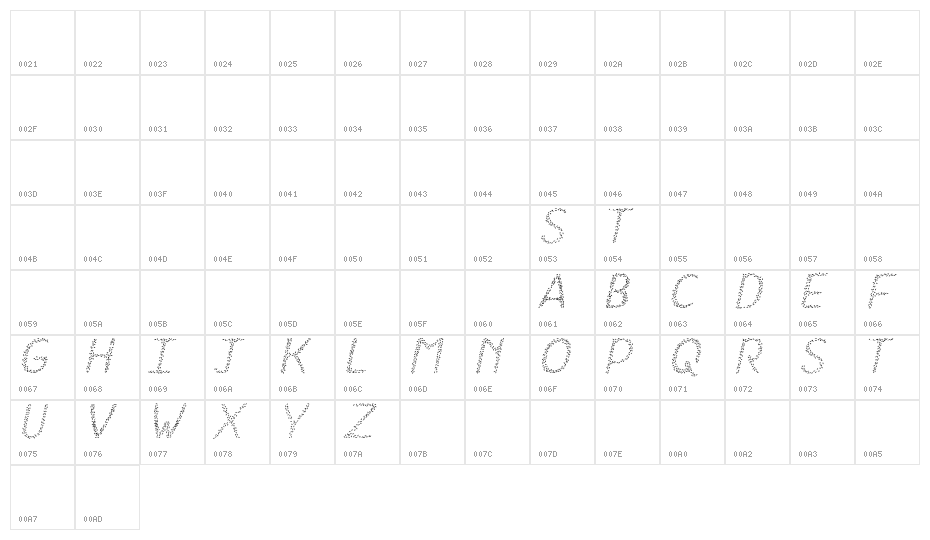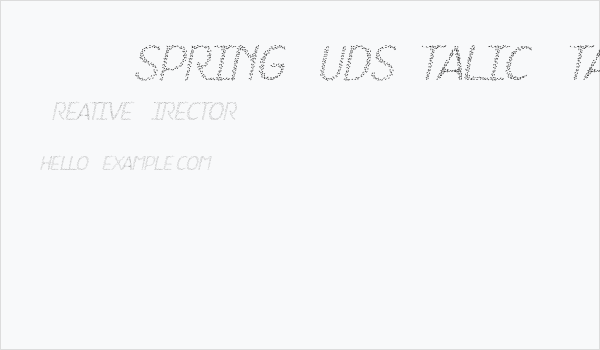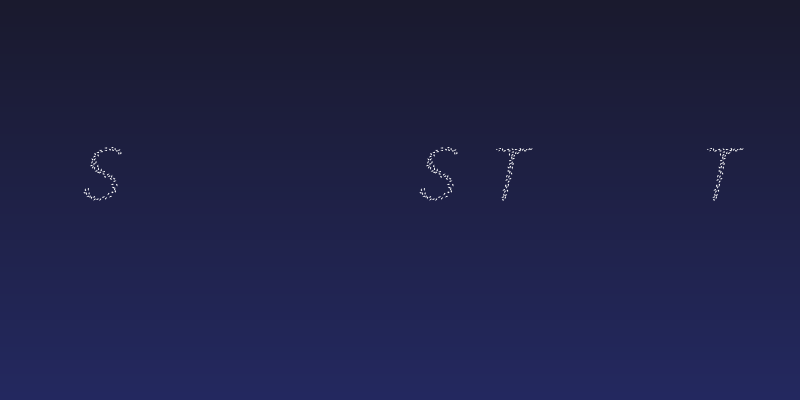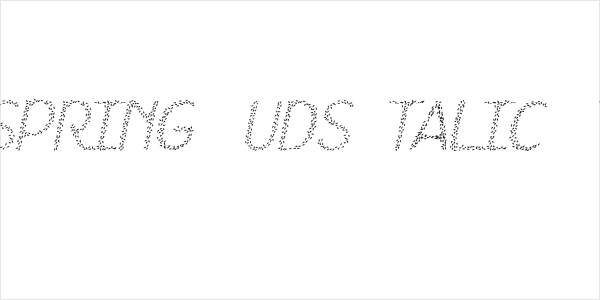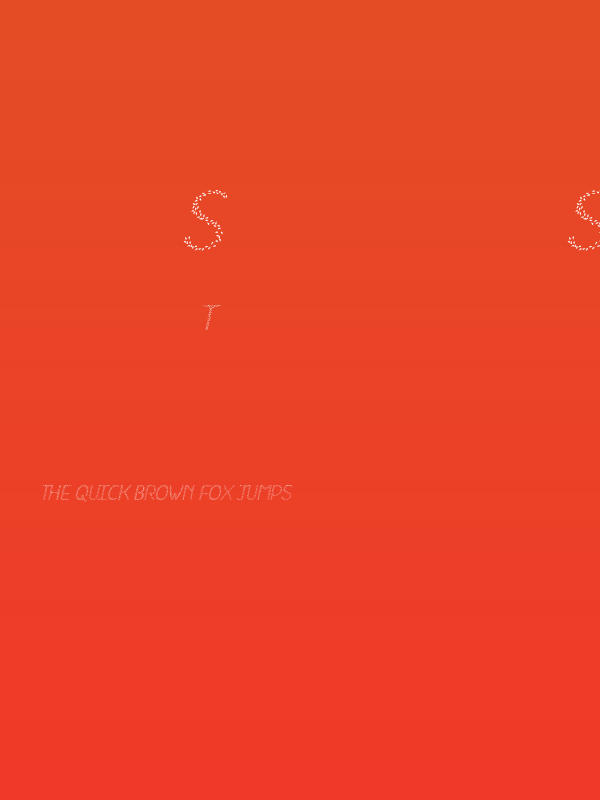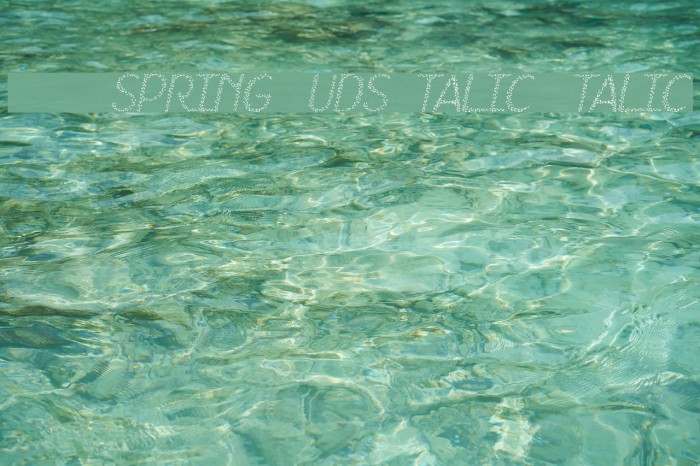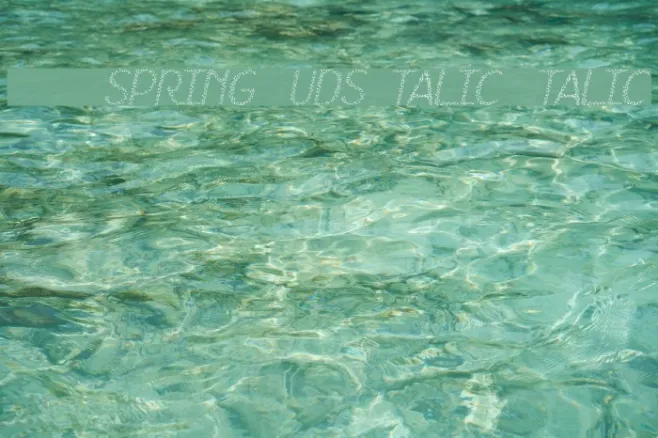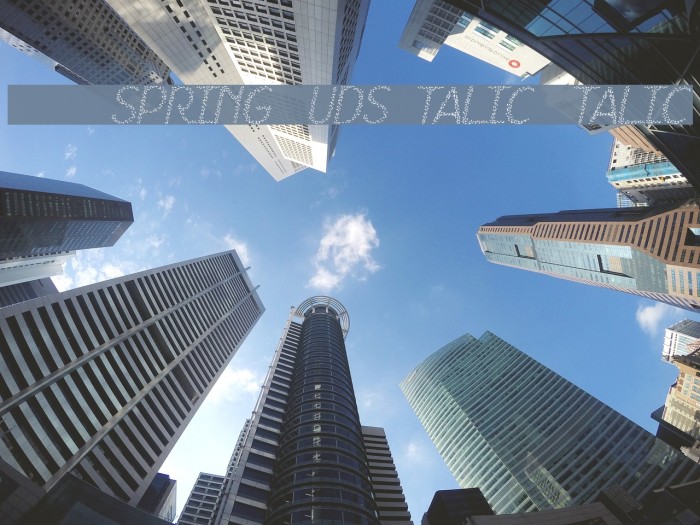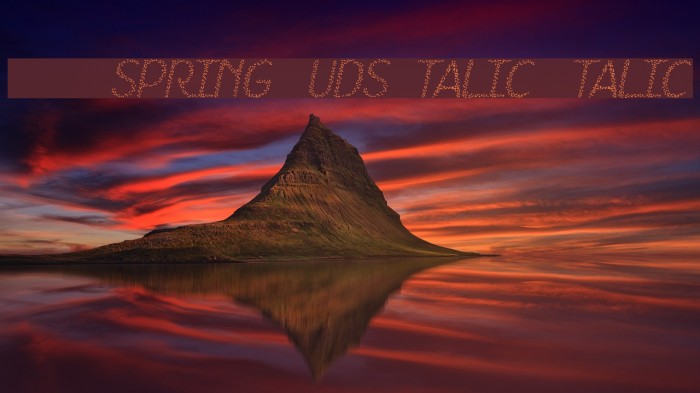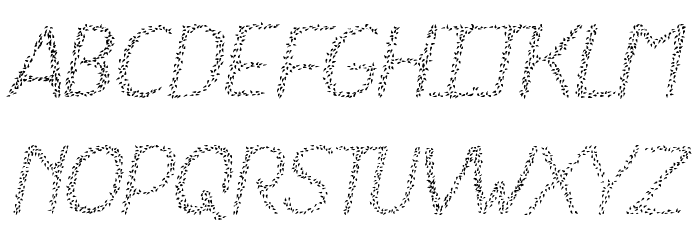
HKH Spring Buds Italic Italic Font
HKH Spring Buds Italic Italic Description
This font features a unique and decorative style, characterized by its intricate pattern resembling small leaves or buds forming each letter. The design gives an organic and natural feel, making it stand out with its artistic flair. The letters are italicized, adding a sense of movement and elegance. The uppercase and lowercase letters maintain a consistent style, with each character crafted to appear as if it is part of a flourishing garden. This font's distinctiveness lies in its ability to convey a sense of nature and creativity, making it ideal for projects that require a touch of whimsy and charm.
| Use Case | Logos, Headlines, Artistic projects |
| Proposed Projects | Ideal for eco-friendly branding, garden-themed invitations, or artistic posters. |